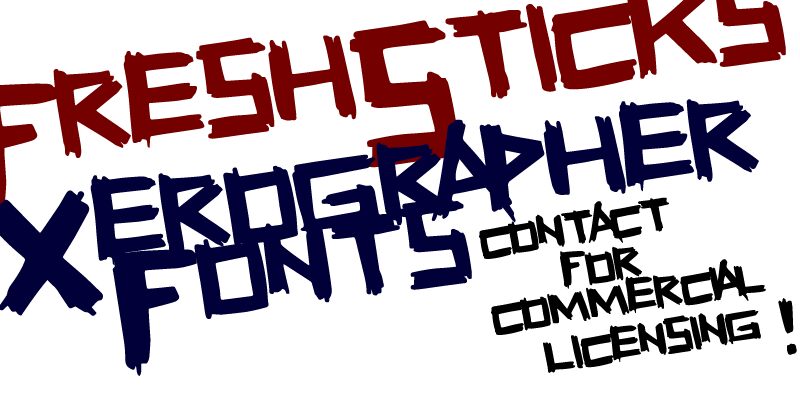
Fresh Sticks from Xerographer Fonts is a free decorative display font with the blunt, splintered look of letters cut from rough sticks. Uneven stroke widths, sharp notches, and wildly angled joins give the capitals a restless silhouette, yet the broad forms remain forceful and easy to recognize.
Its jagged construction can echo scratched illustrations and torn-paper shapes in gig posters, album artwork, and streetwear graphics. The recurring wood-splinter motif also makes it apt for camping event branding and outdoor-themed packaging, where the lettering can become part of the rustic artwork.